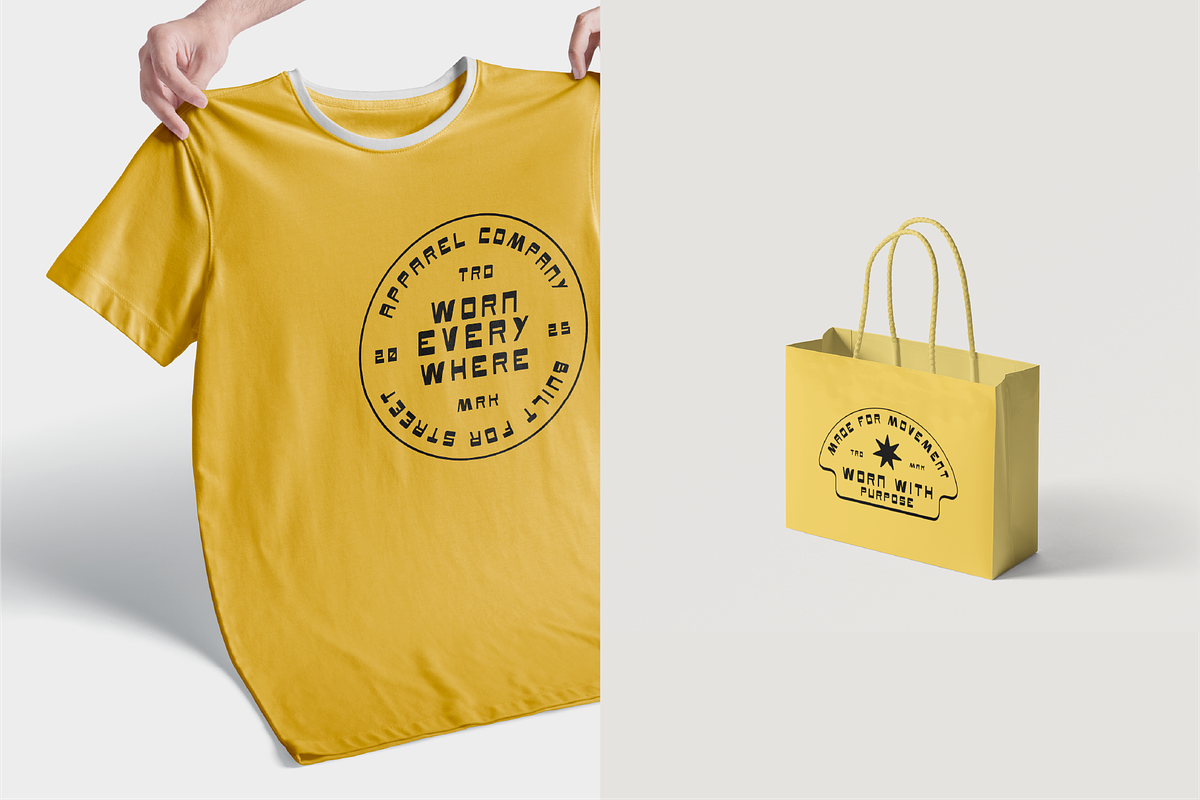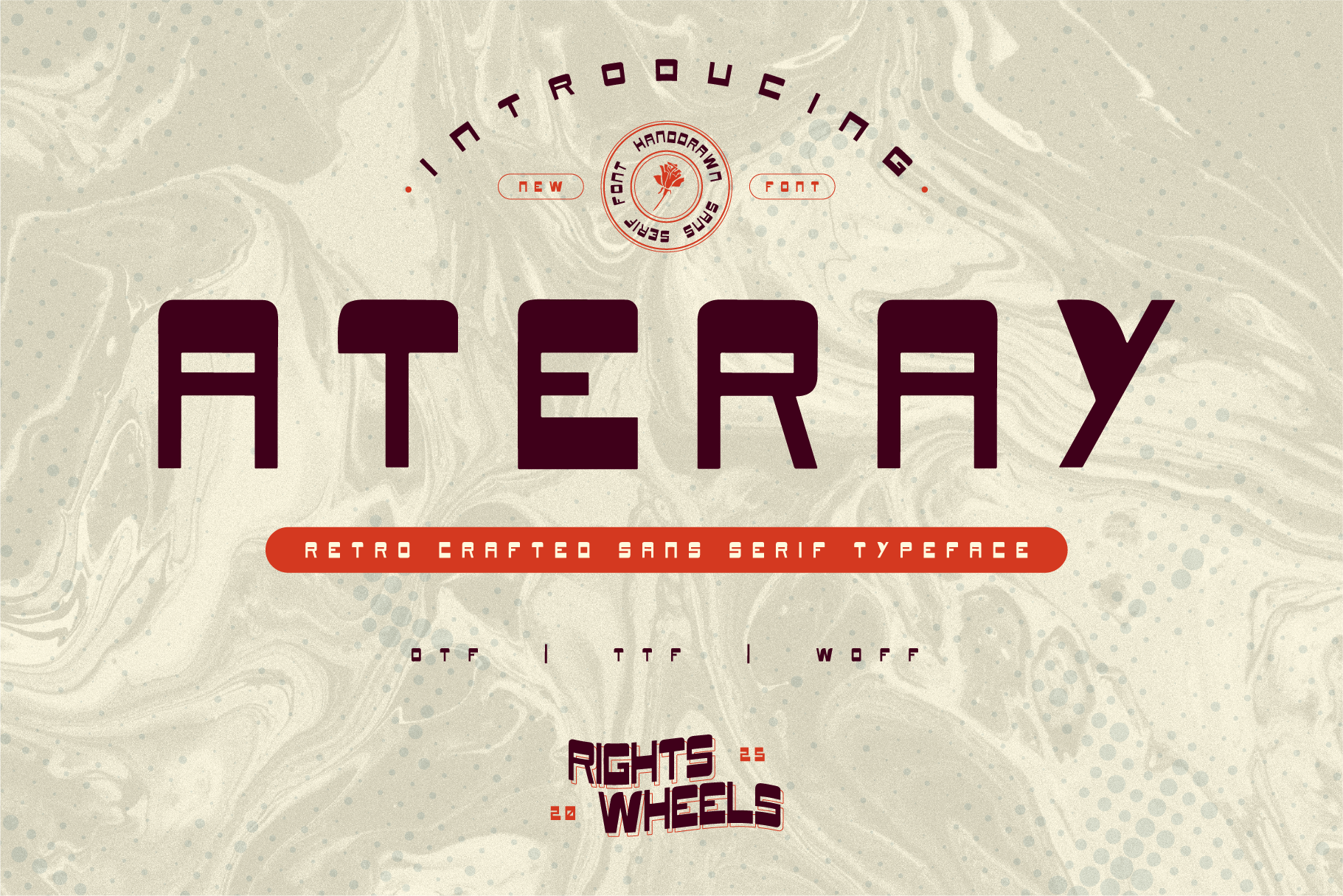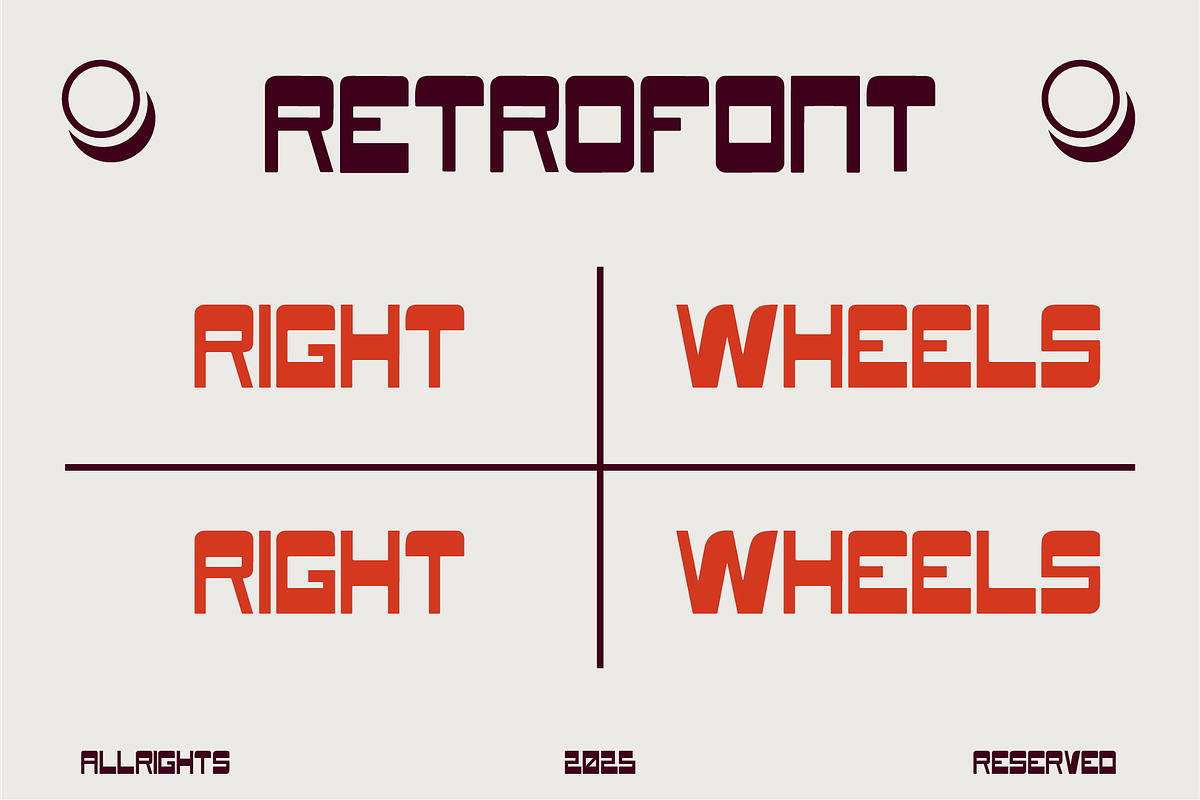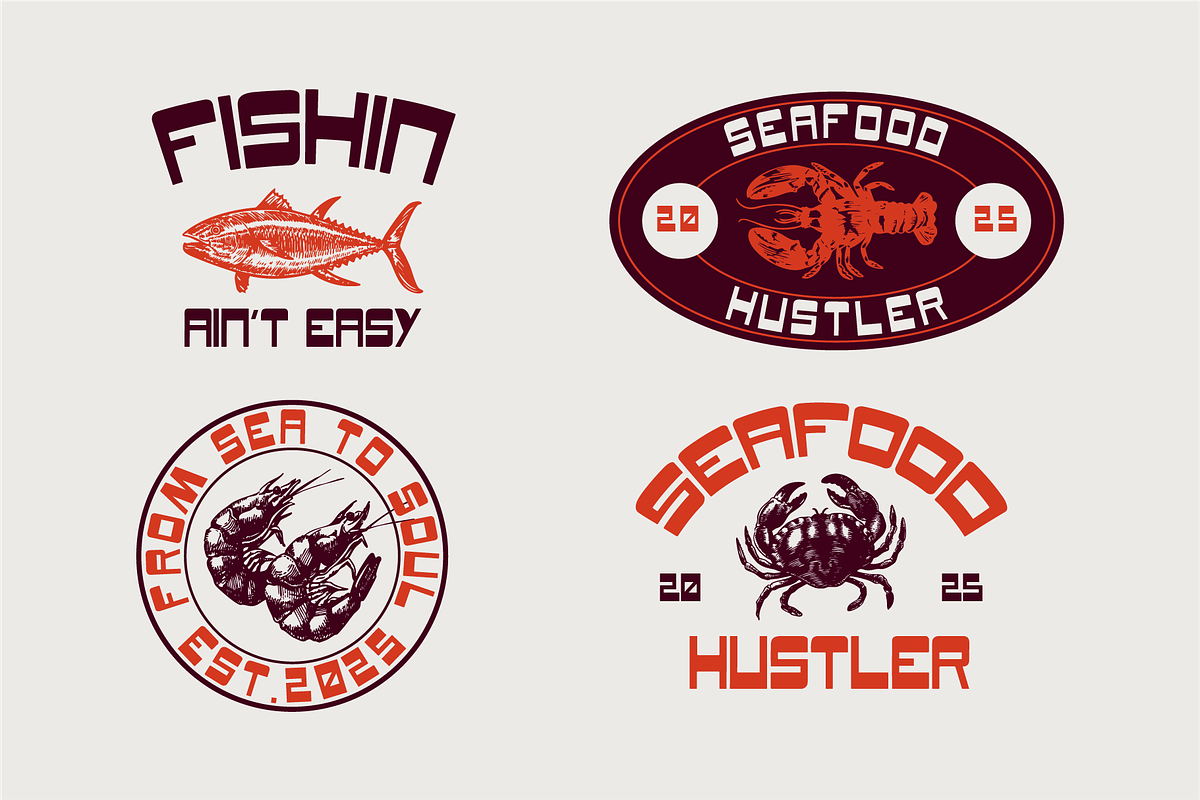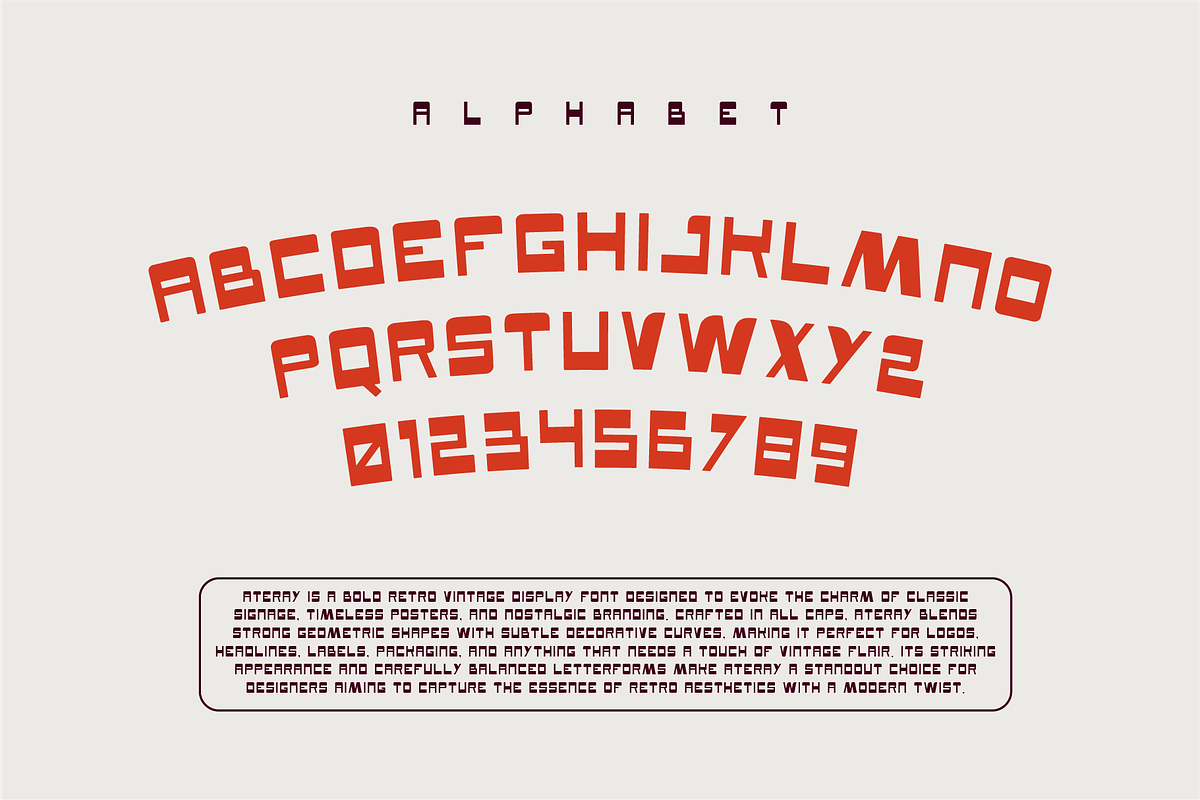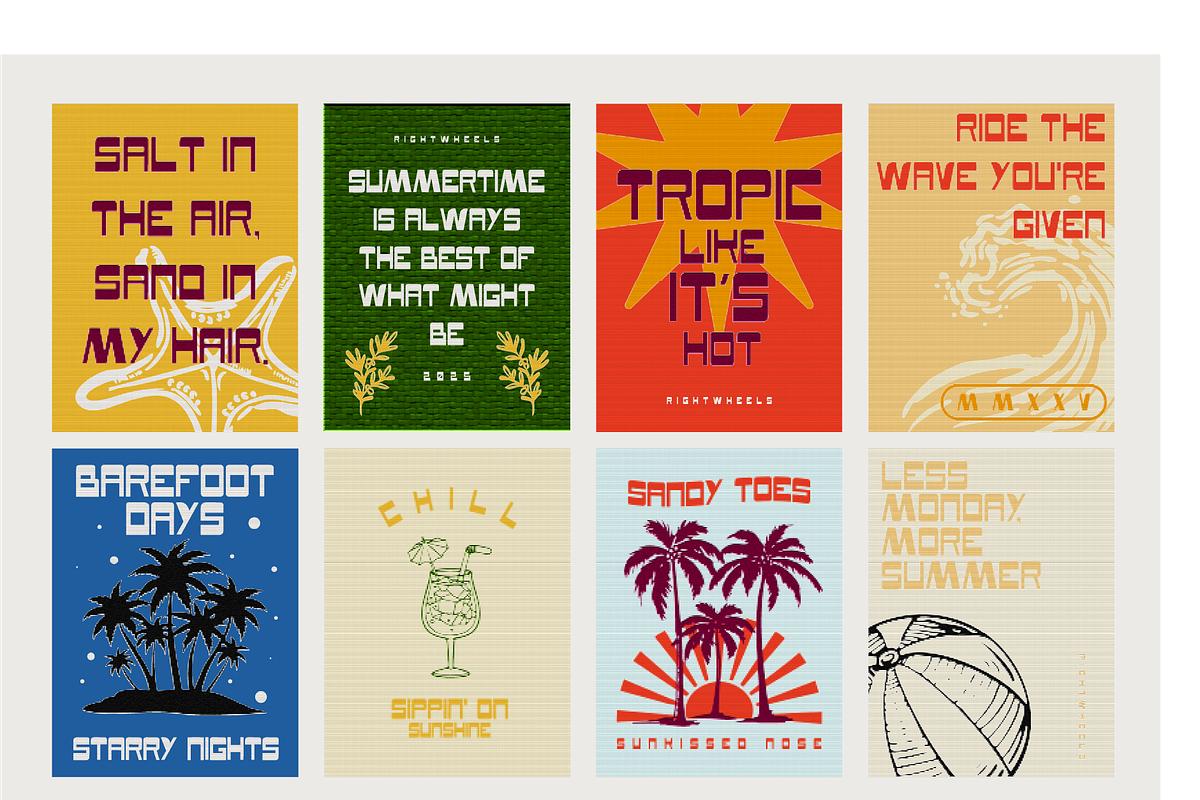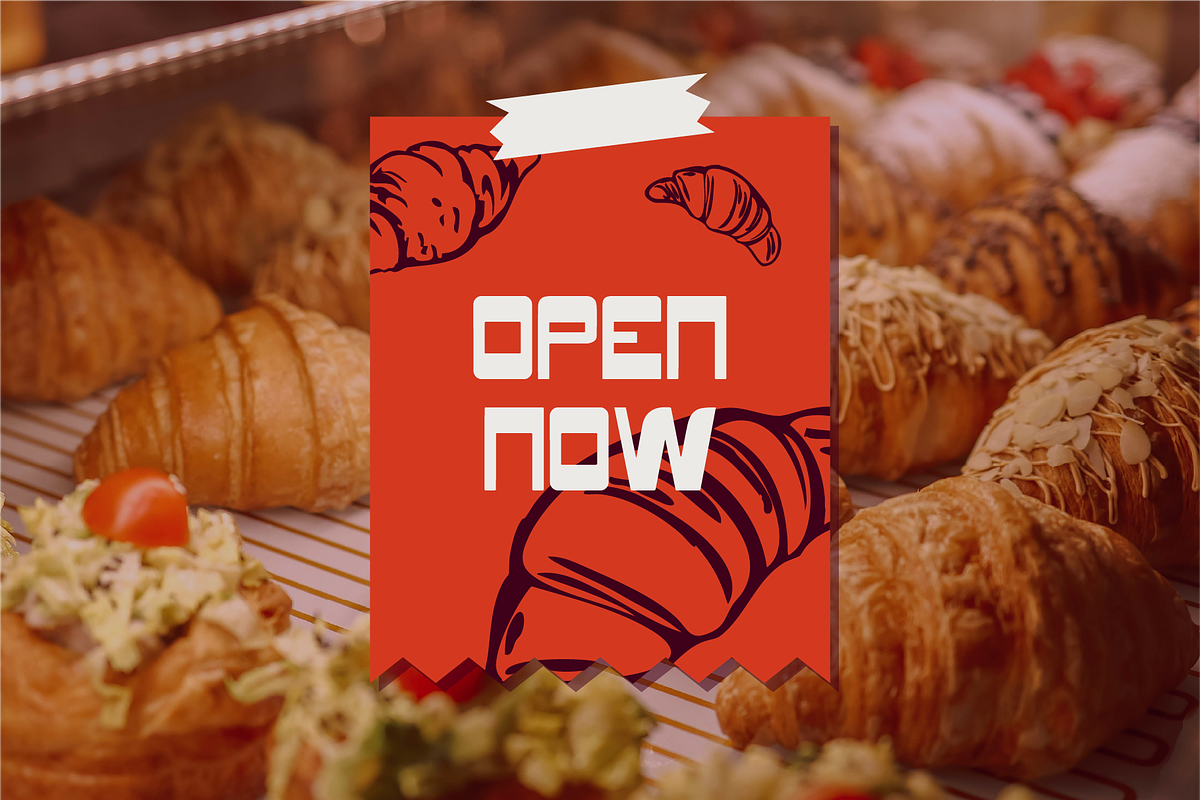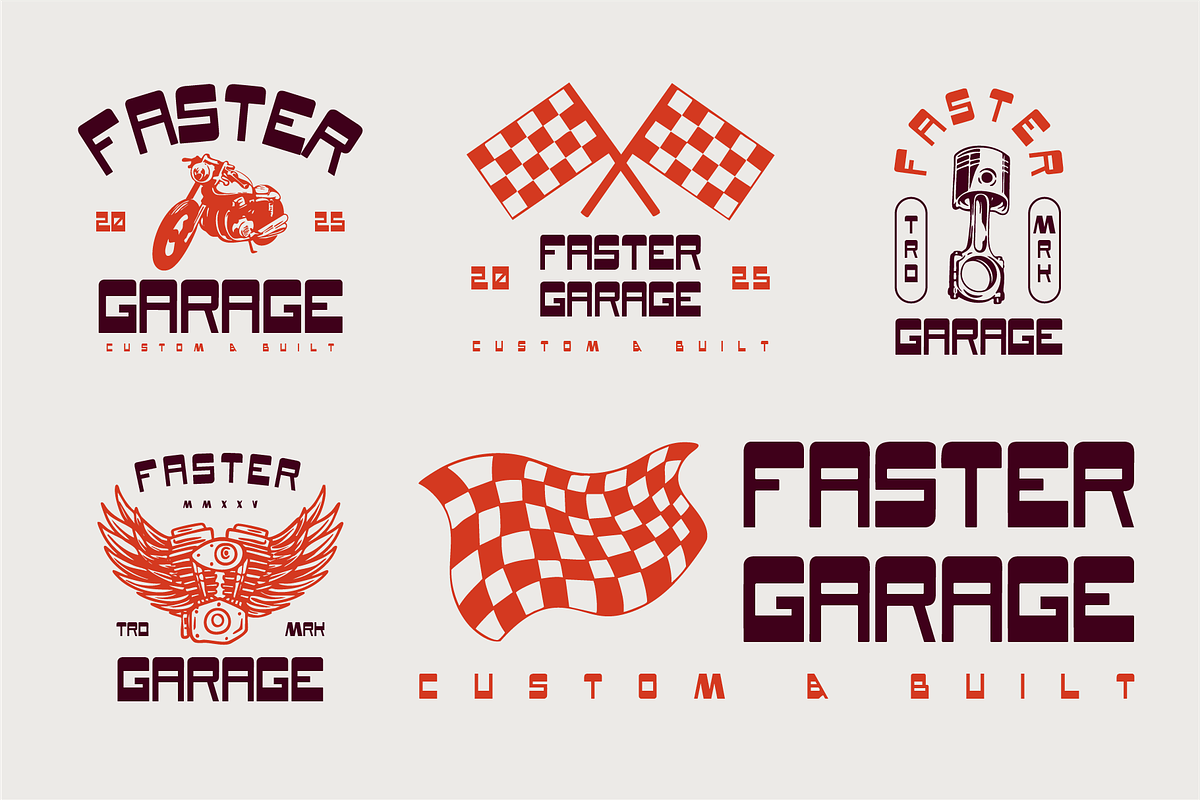
ATERAY - Retro Display Font
Ateray is a retro-inspired font with a unique, nostalgic flair. It combines vintage elements with modern precision, creating a look that is both classic and fresh. Ideal for projects that seek to evoke a sense of nostalgia while still maintaining a contemporary feel, Ateray’s bold lines and distinct style make it perfect for branding, posters, and titles that need a touch of retro charm.